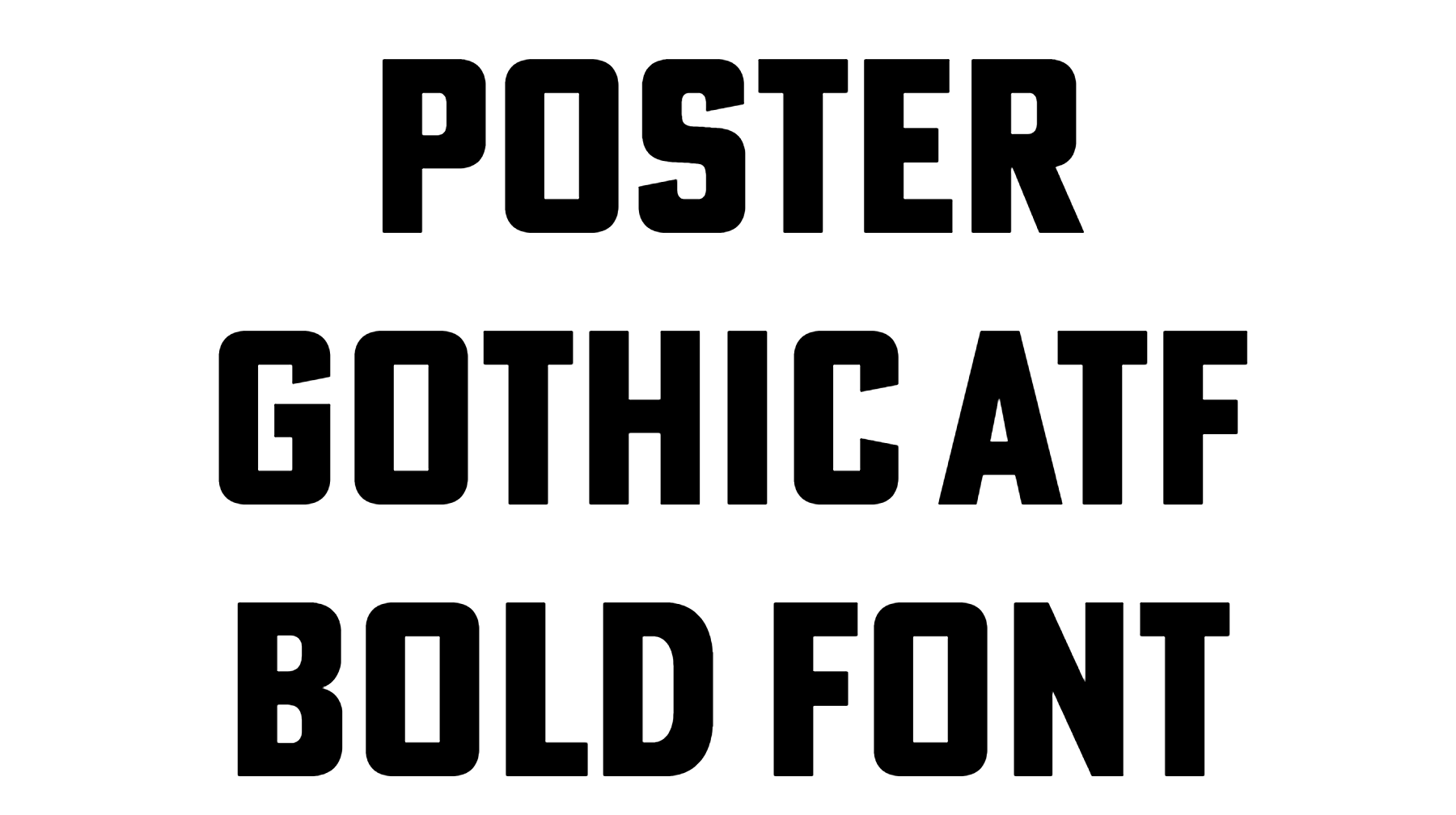
Poster Gothic ATF Bold
Poster Gothic ATF Bold is a sans serif font designed by American Type Founders Collection (2015). Its clean letters skip the little "feet" (serifs) of traditional type, so it looks modern and reads well on screens. The free download includes five styles, and you can try every one of them with your own text in the preview above.
Poster Gothic ATF Bold Font Details
- Designer: American Type Founders Collection
- Width: Extra-condensed
- OpenType features: Old-style numbers and fractions
What You Can Type With Poster Gothic ATF Bold
Poster Gothic ATF Bold covers the full alphabet in upper and lowercase, plus all ten numbers, so you can set names, dates and prices without switching fonts. Common punctuation such as &, !, ? and @ is included as well. It also has the accented letters you need for Spanish, French, German, Portuguese and Italian.
Where Poster Gothic ATF Bold Works Best
Poster Gothic ATF Bold is a natural fit for websites, app screens and clean logos. Because the letters are narrow, long words fit in tight spaces like book spines, banners and video thumbnails. It works for headings and body text alike. If the download has several weights, use a heavier one for titles and a lighter one for paragraphs. Because the family has more than one style, you can mix them in a single design for headings, subheadings and highlights.
Who designed Poster Gothic ATF Bold font?
Poster Gothic ATF Bold was designed by American Type Founders Collection. The copyright line inside the font is dated 2015.
Does Poster Gothic ATF Bold support accented letters?
Yes. Poster Gothic ATF Bold includes the accented letters needed for Spanish, French, German, Portuguese and Italian, so it works for more than just English.